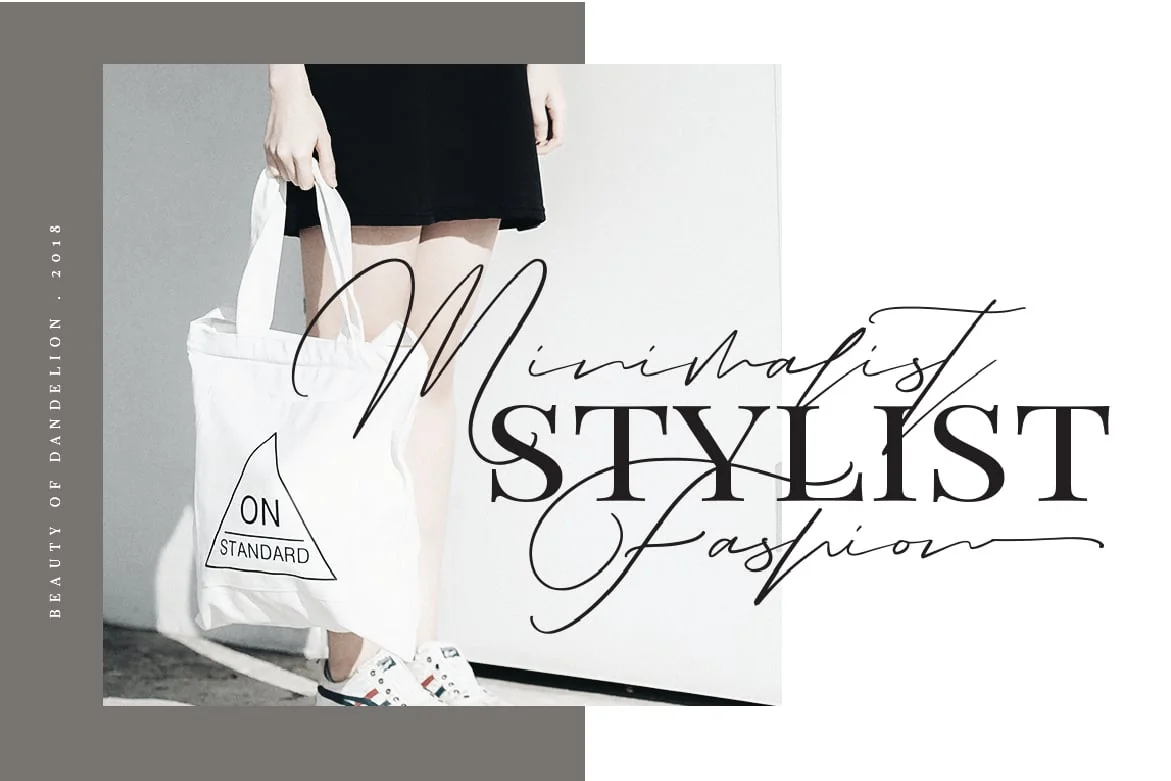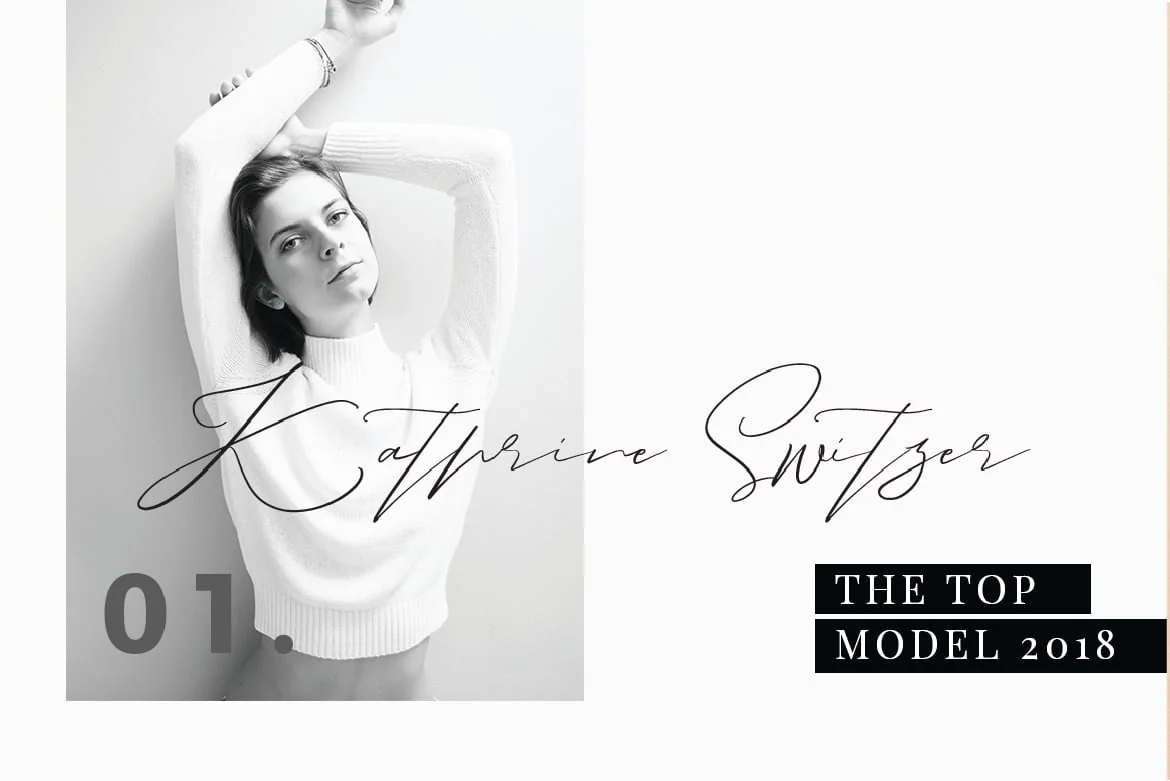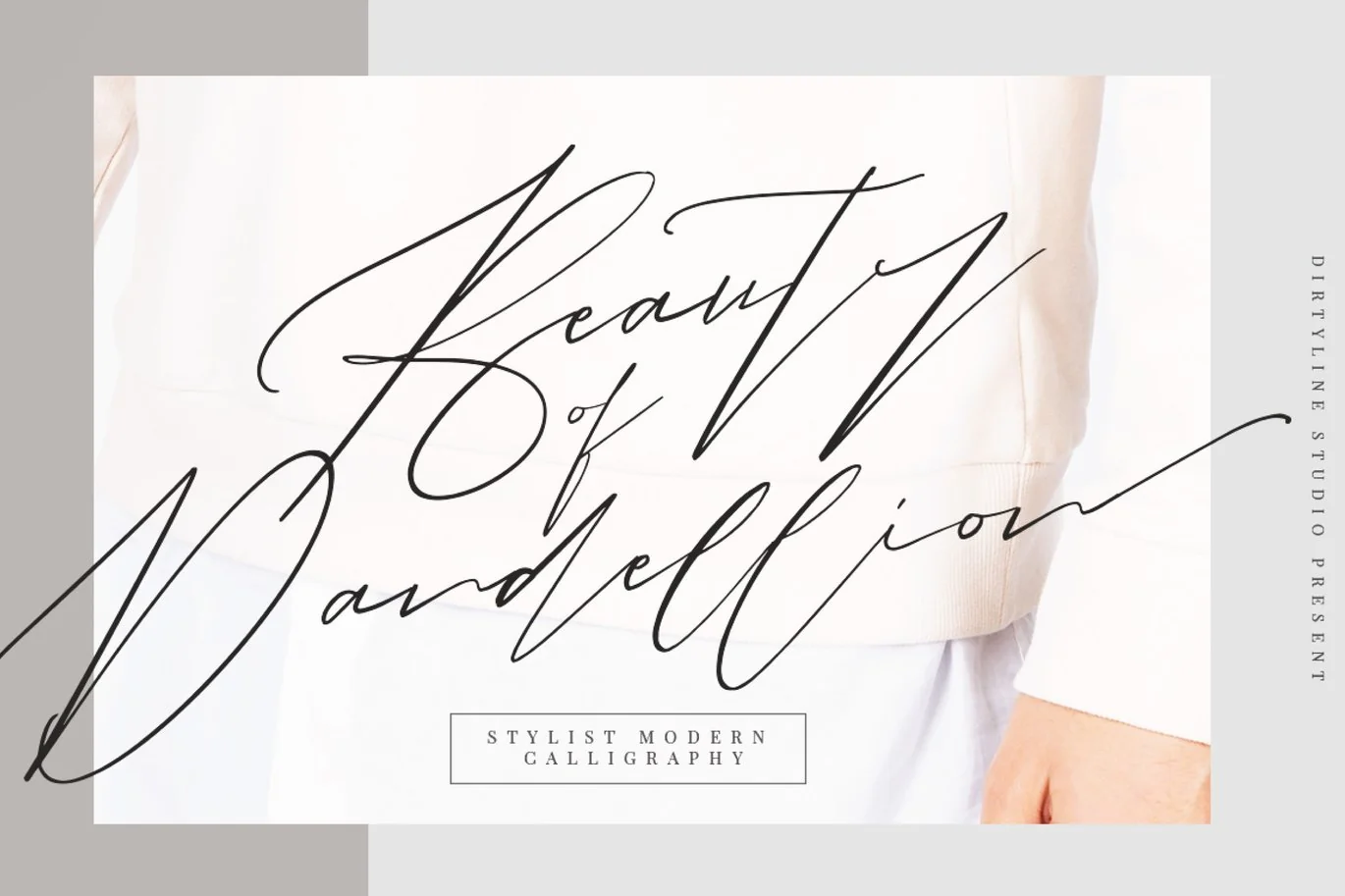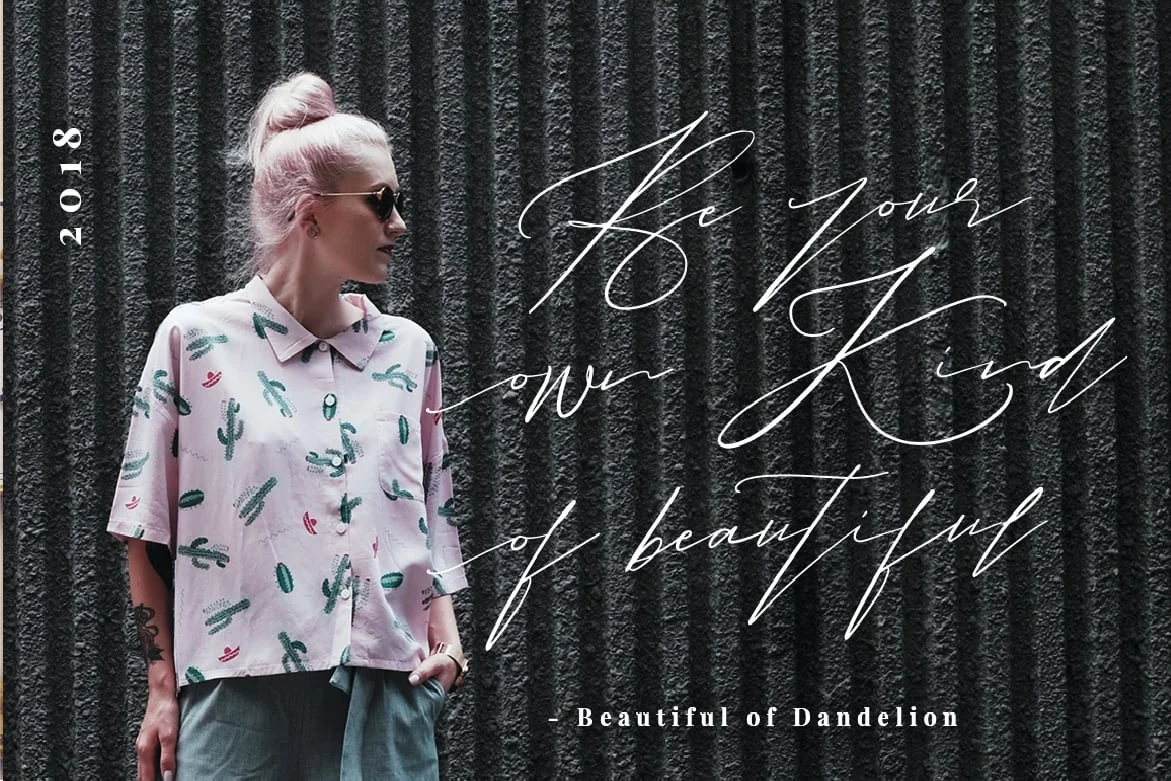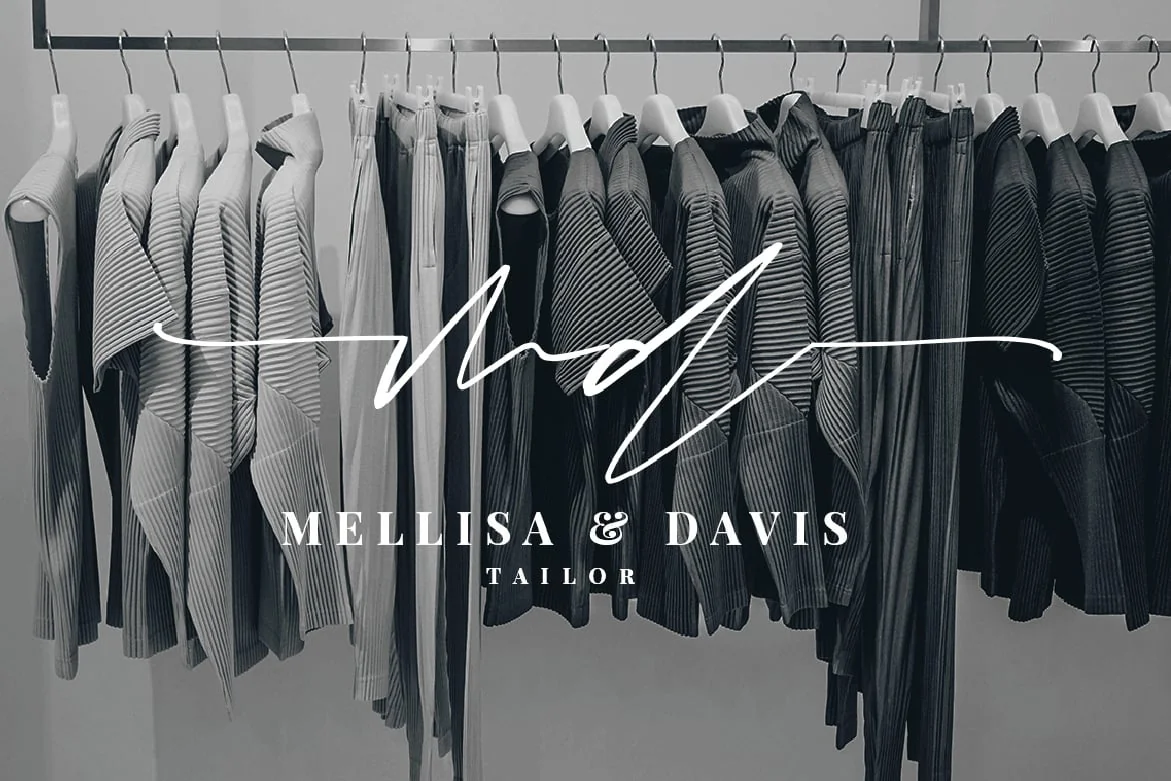
Beauty of Dandelion Script Wedding Font
Beauty of Dandelion Script stylist- a new fresh & modern script with a calligraphy style, a dancing baseline! So beautiful on invitation like greeting cards, branding materials, business cards, quotes, posters, and more!
Beauty of Dandelion come with more Alternative and more Ligature. The alternative characters were divided into several Open Type features such as Stylistic Sets, Stylistic Alternates and Ligature. The Open Type features can be accessed by using Open Type savvy programs such as Adobe Illustrator, Adobe InDesign, Adobe Photoshop Corel Draw X version, And Microsoft Word. And this Font has given PUA unicode (specially coded fonts). so that all the alternate characters can easily be accessed in full by a craftsman or designer
- Initial Alternates
- Terminal Alternates
- Standard ligatures
- Unique ligatures
- International Symbols include